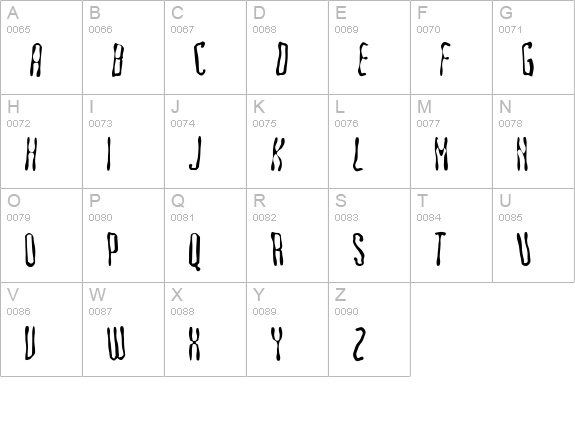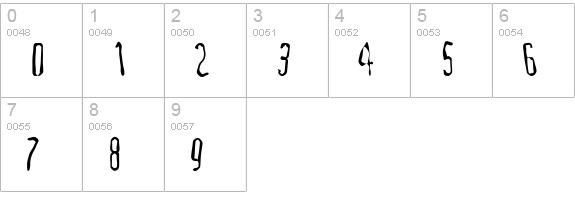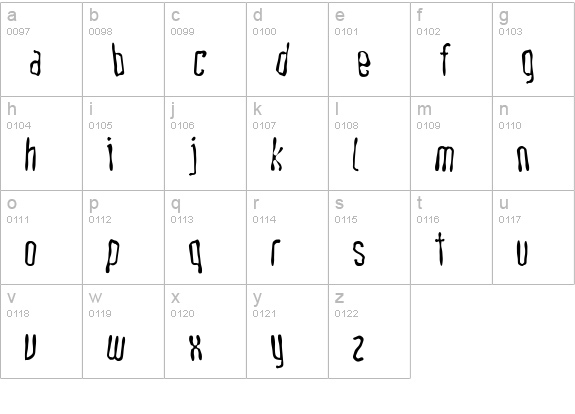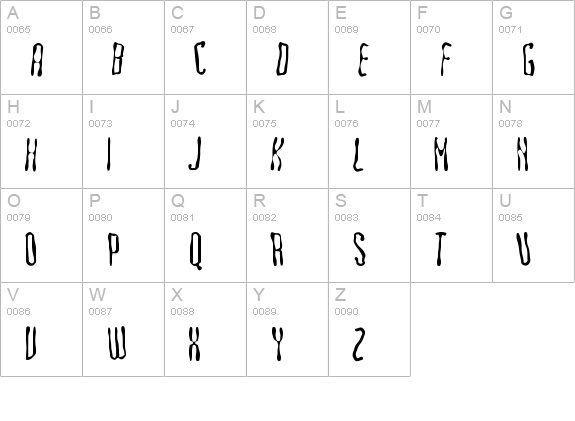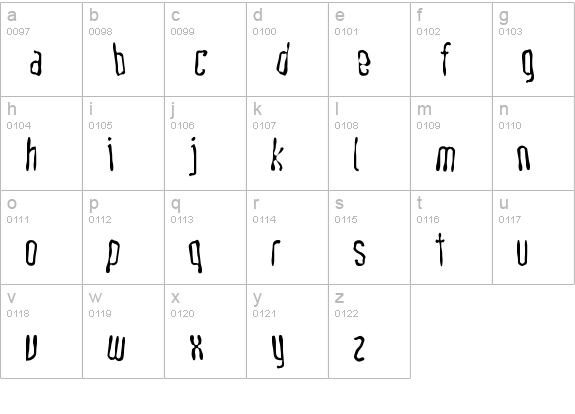
Belch Font Details
Belch font is a unique and versatile typeface that exudes character and charm. Its playful yet stylish design is perfect for a wide range of creative projects, from branding to advertising to social media graphics. With its bold letterforms and quirky details, Belch font is sure to make a statement and leave a lasting impression. Best of all, Belch font is completely free to download at FontsMarket.com. This means you can easily access this eye-catching font and use it in your projects without any cost. Whether you're a designer looking to add a touch of personality to your work or a business owner in need of a fresh look for your brand, Belch font is the perfect choice. Download it today and let your creativity soar with this fantastic free font!